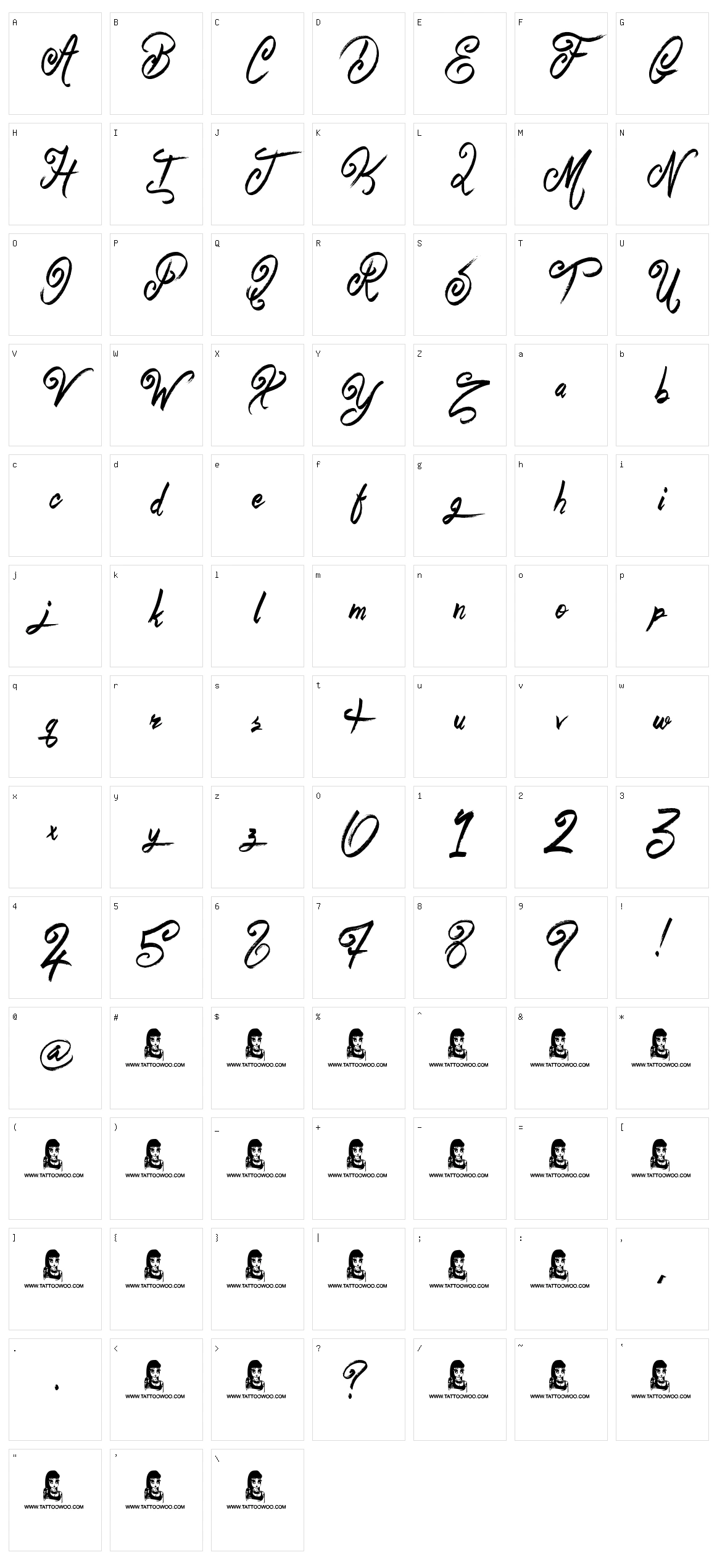
The free font Believer Fever is carefully designed by JSH creates, showcasing a thoughtful balance of creativity and usability and falls under the Script font style. When you download the ZIP file, it contains only 145.38 KB of font files, making it lightweight and quick to download. Please review the license details below to understand permitted usage and distribution rights. If license information is not available, we recommend using this font for personal projects only or contacting the author directly for commercial usage permissions.